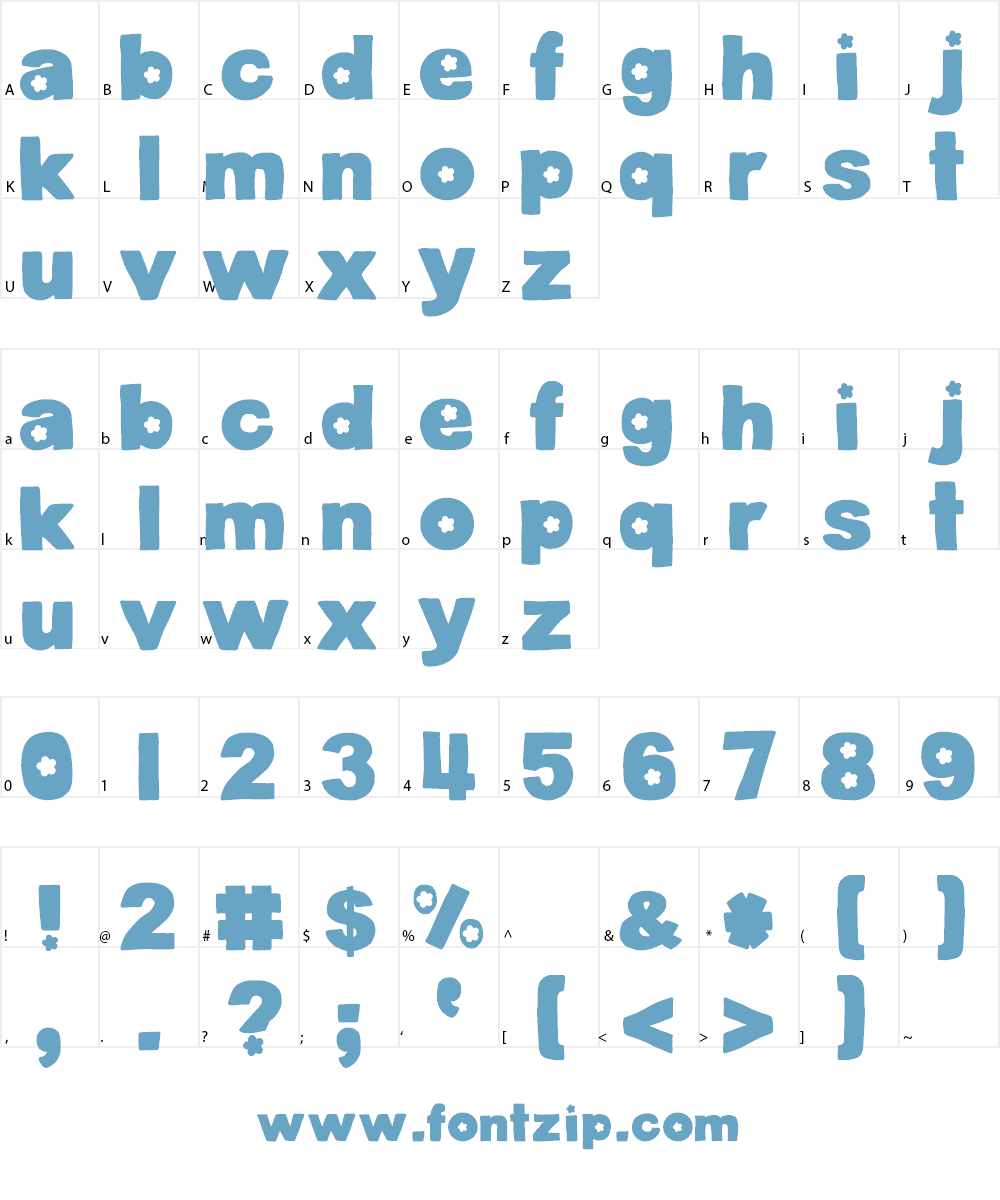
Remember those letter cutouts your kids would do in elementary school - not quite perfect, but so stinkin' cute? Here are three fonts reminiscent of those hand-cut letters with cute little cutouts in the centers of stars, hearts and flowers, each in their own separate font.